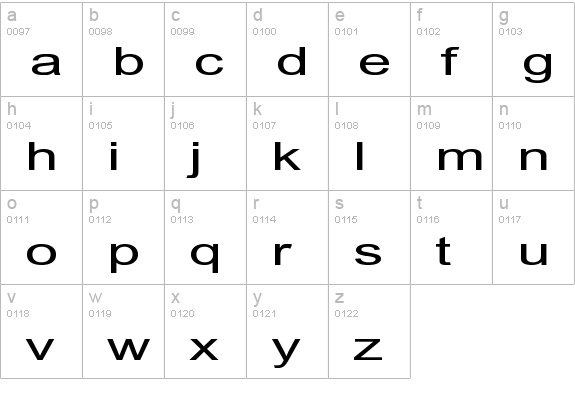
Dixon Ex Font Details
The Dixon Ex font is a modern and versatile typeface that exudes elegance and sophistication. With its clean lines and sharp edges, this font is perfect for a wide range of design projects, from branding to editorial design. The Dixon Ex font is characterized by its unique letterforms and attention to detail, making it stand out from the crowd. One of the best things about the Dixon Ex font is that it is completely free to download. You can easily access this stunning font at FontsMarket.com, where you can take advantage of its sleek and professional aesthetic without any cost. Whether you're a designer looking to elevate your projects or a business in need of a fresh new look, the Dixon Ex font is the perfect choice for adding a touch of sophistication to your work. Download it today and see the difference it can make in your designs.